Check out this bundle of elegant sans-serif fonts featuring 10 distinctive and feature rich font designs, every font in the collection is mutually compatible with the others, so they can be used as stand-alone typography for your projects or paired with any of the other font from the collection to get great looking display compositions.
Every font in the collection features a modern, elegant design with delicate glyphs, rich ligatures, multilingual character sets and diacritics, as well as uppercase and lowercase (with 1 all-caps font). With this collection you'll be able to create great looking logos, display designs for posters and branding, apply them for headers and large typographic elements for print templates, etc
- 10 distinctive sans-serif fonts
- Multilingual Diacritics
- Ligature Rich, Standard Ligature
- Multilingual characters
- Numeral & Punctuation
- Uppercase & Lowercase (except Charleth as it is in all caps)
Fonts in this bundle:
Vlasta
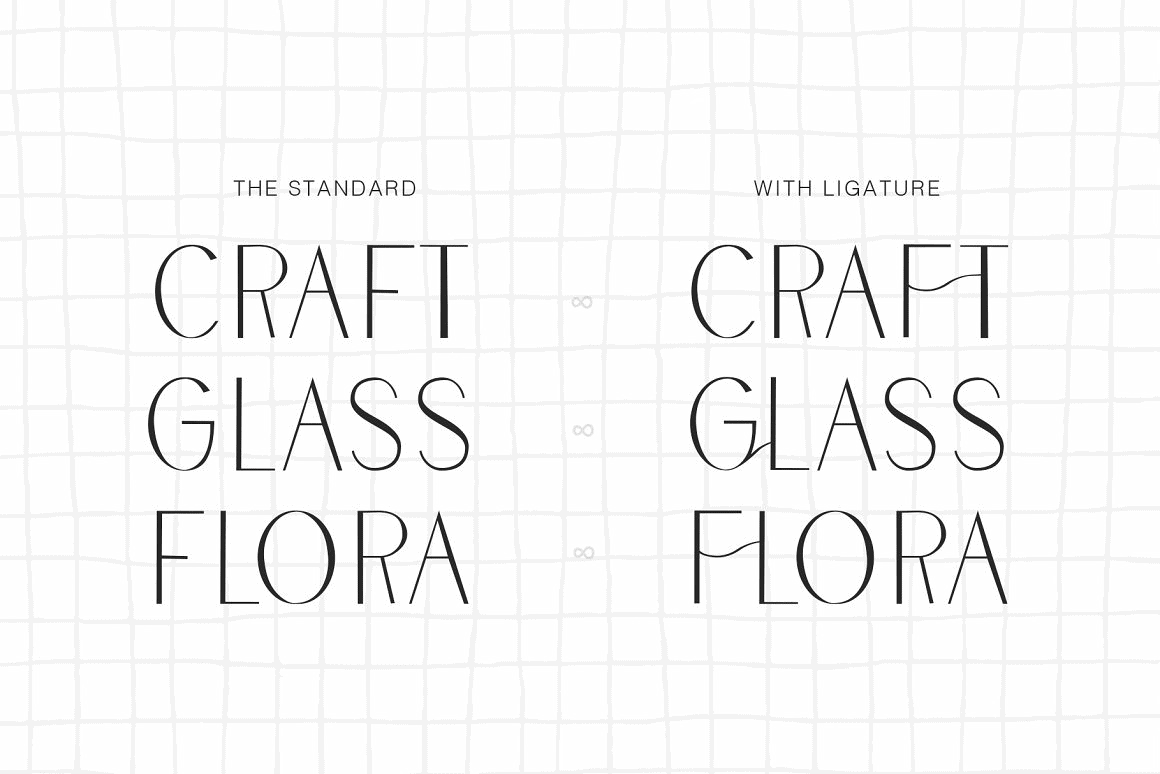
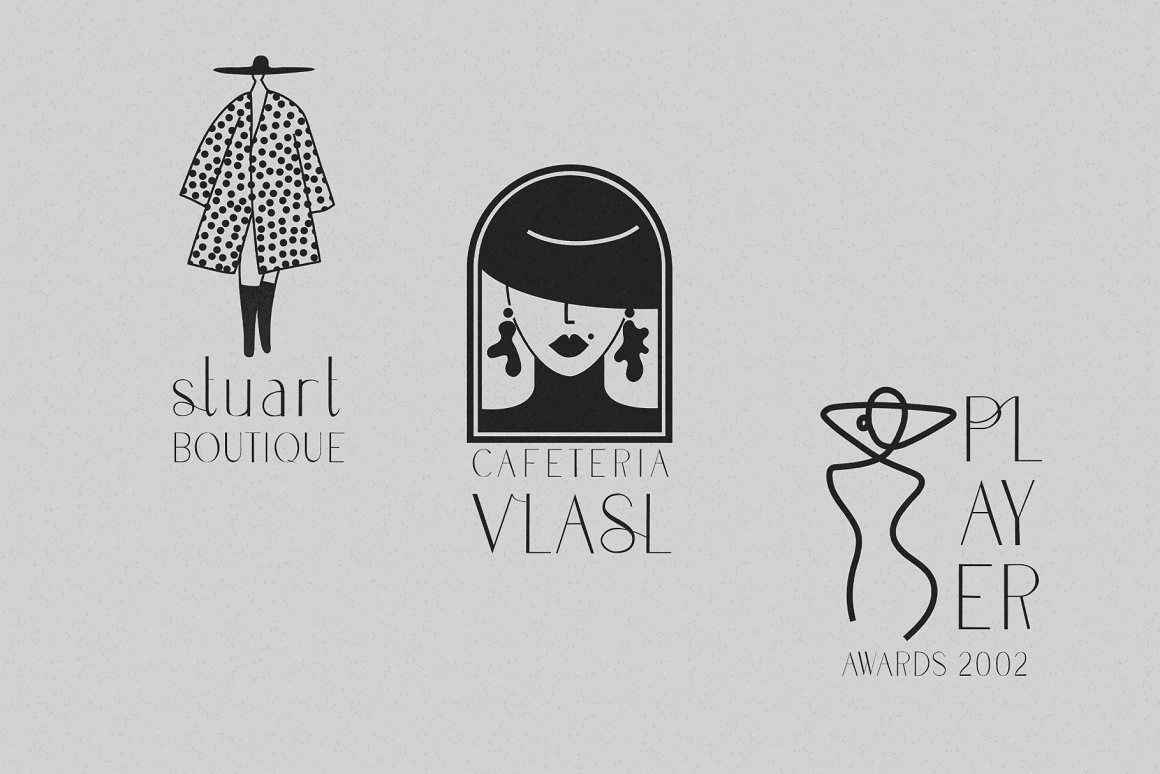
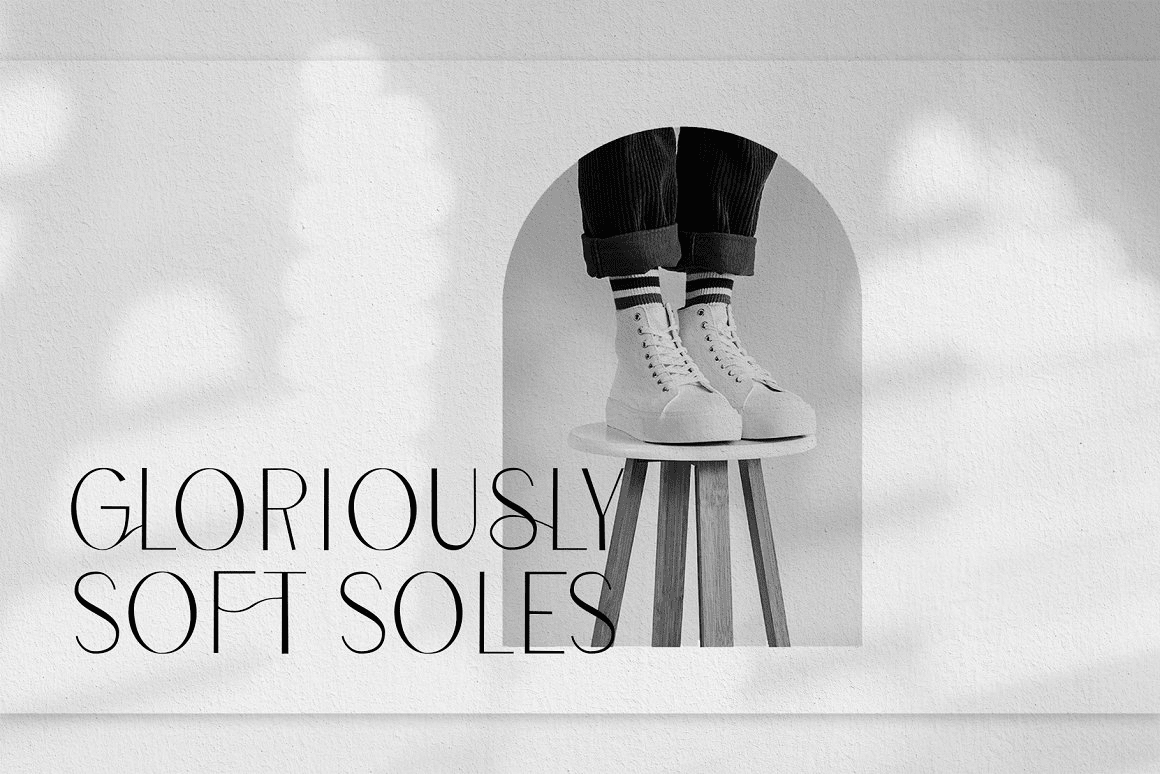
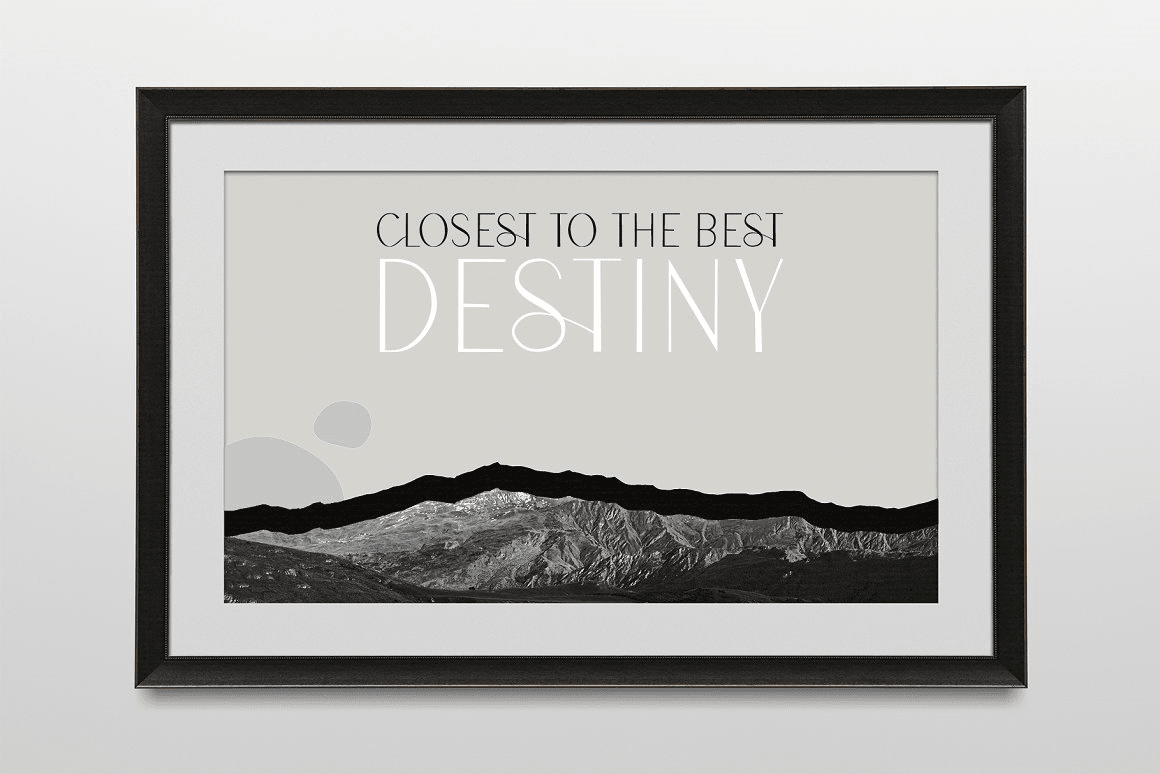
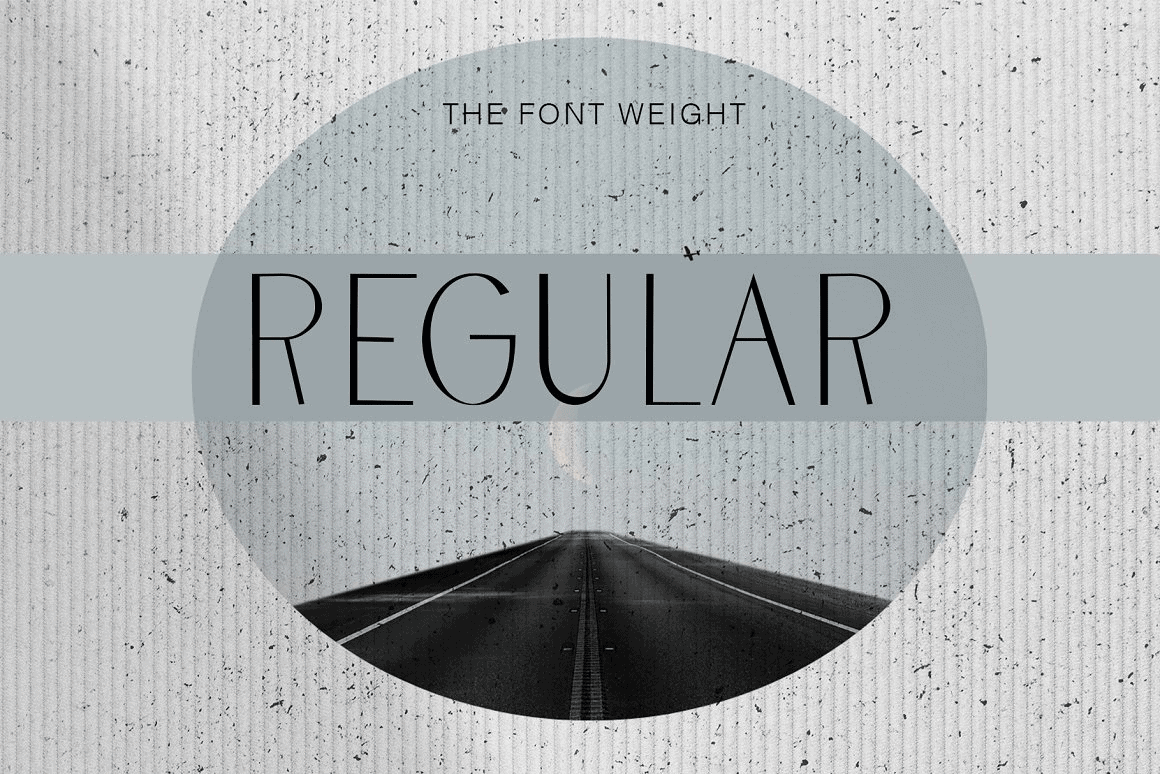
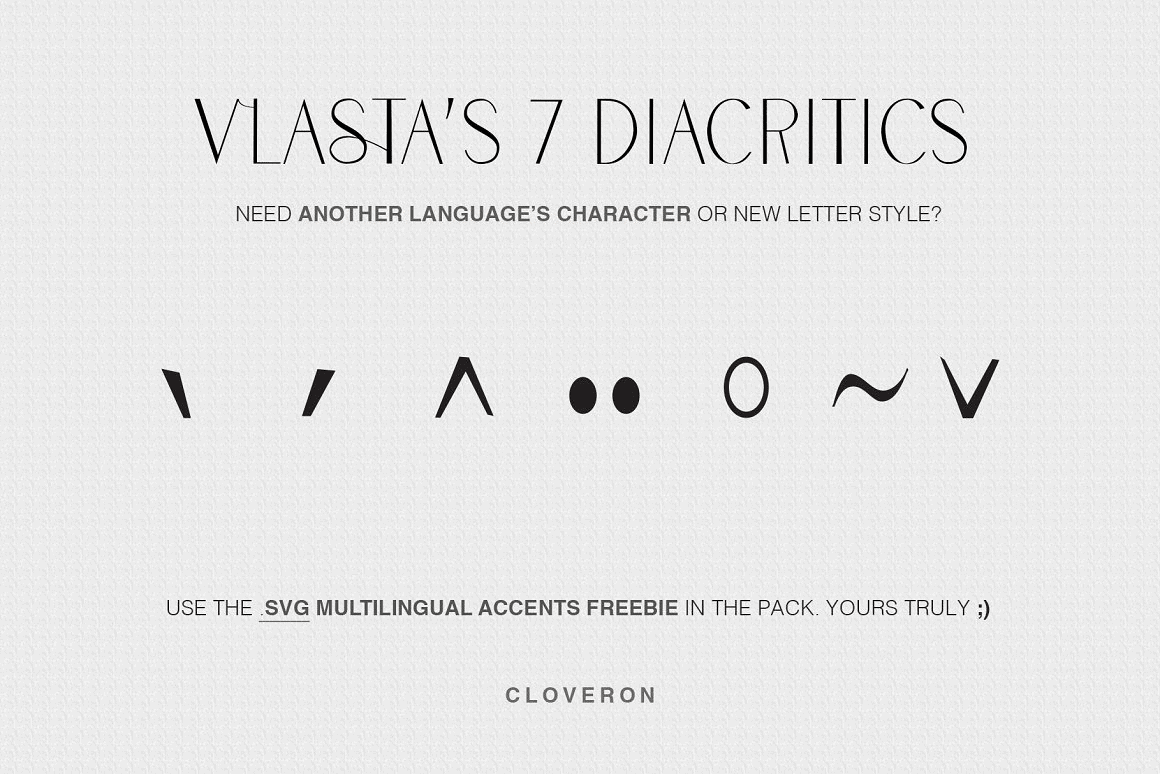
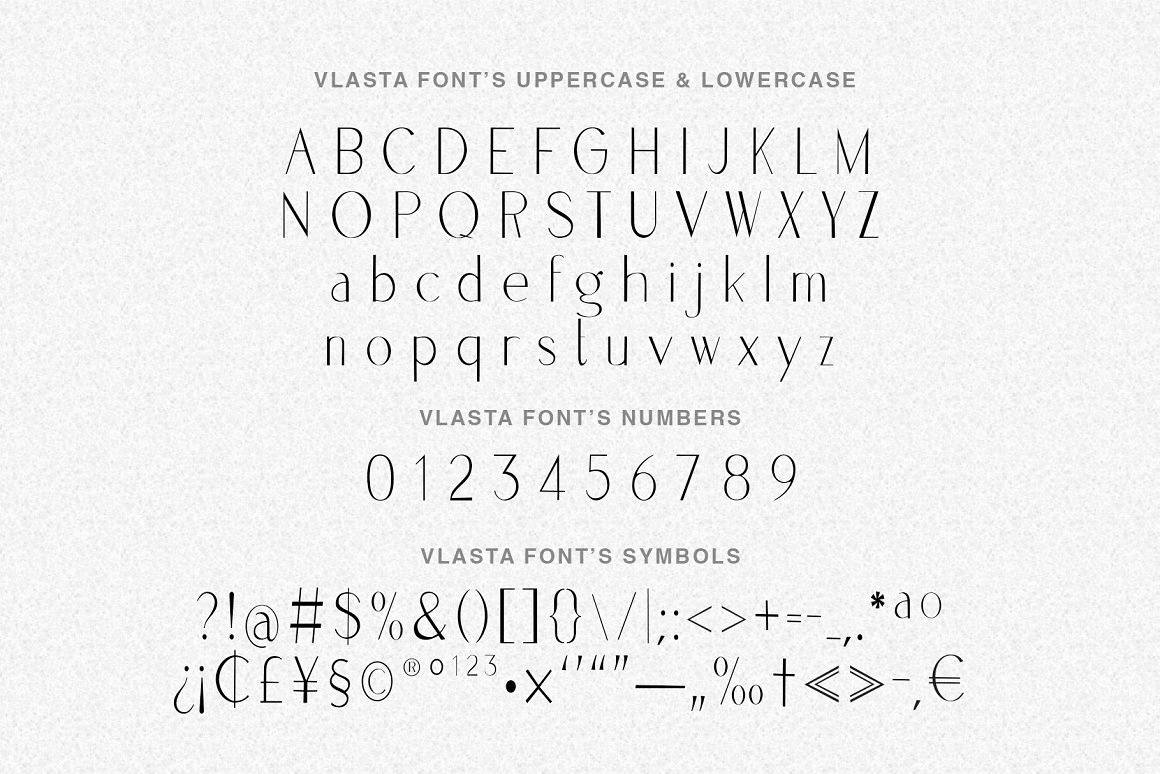
Peggie
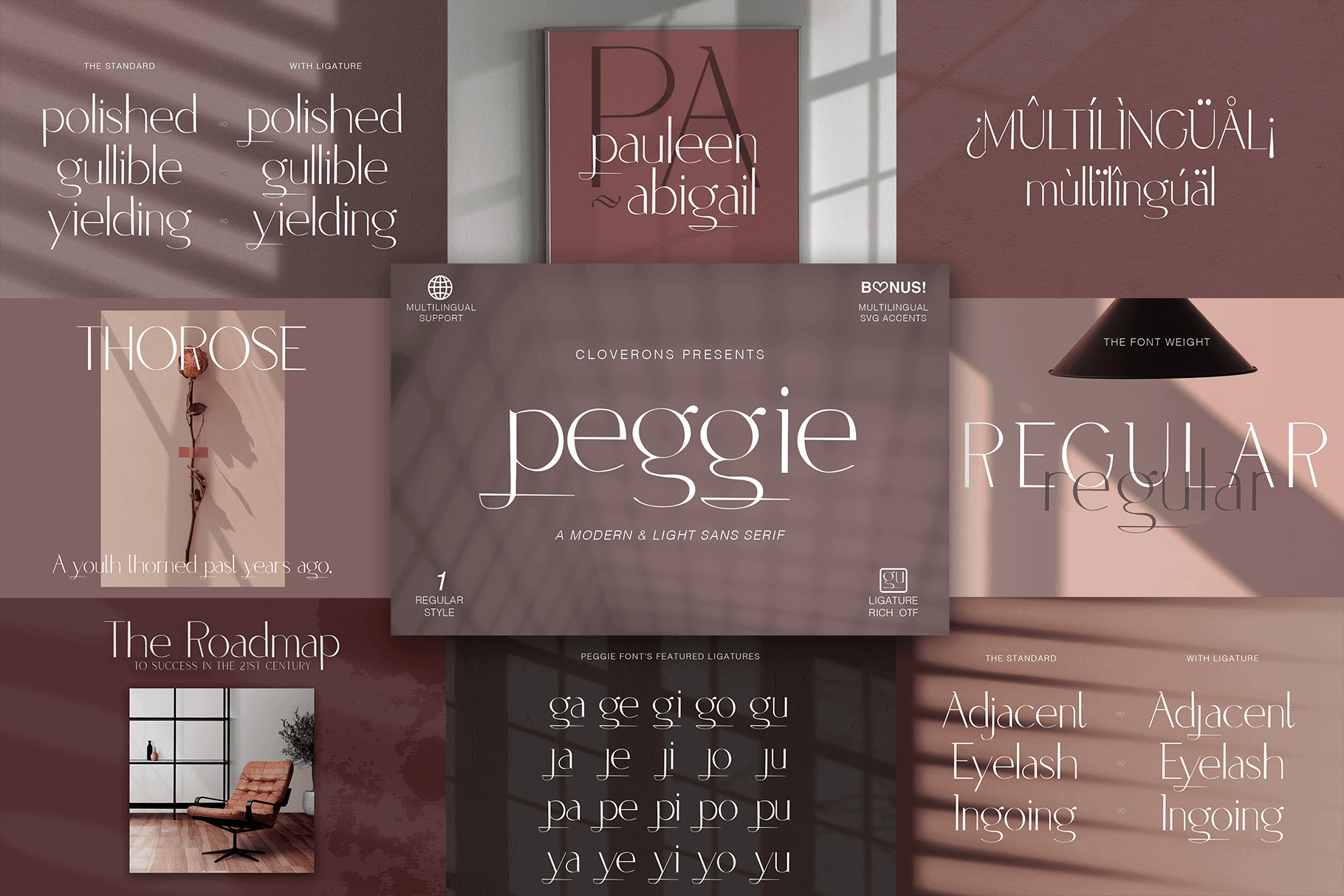
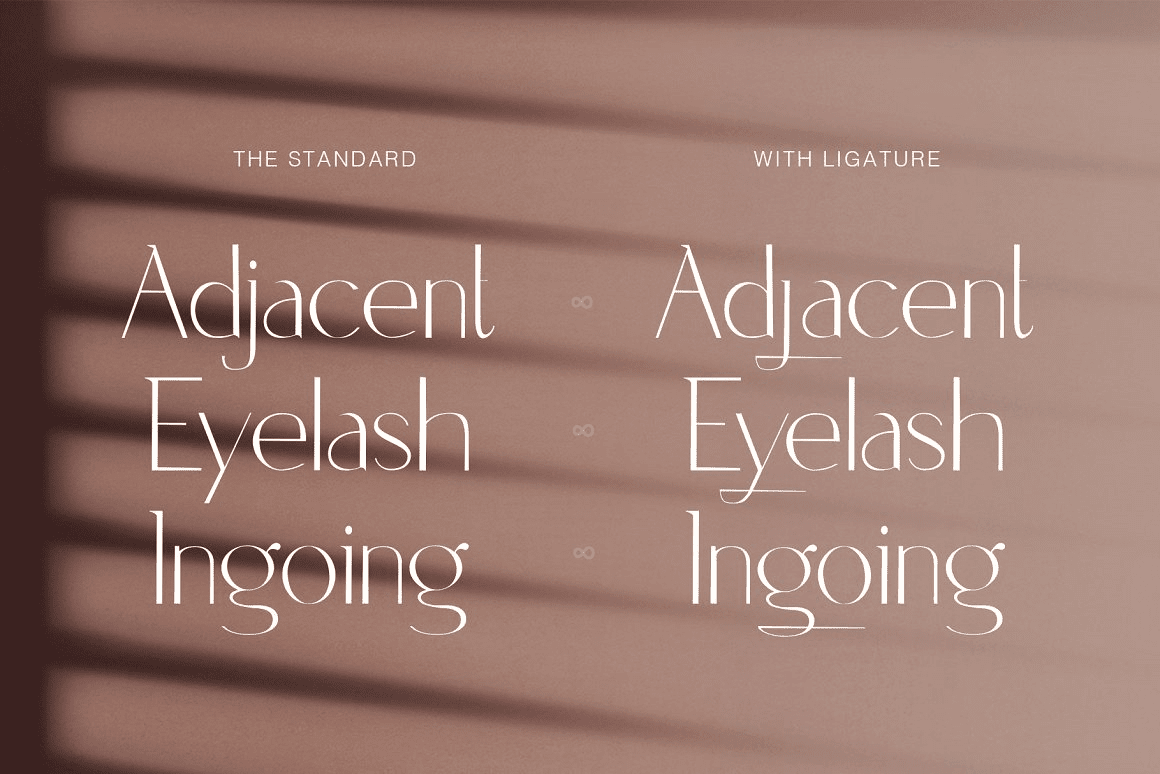
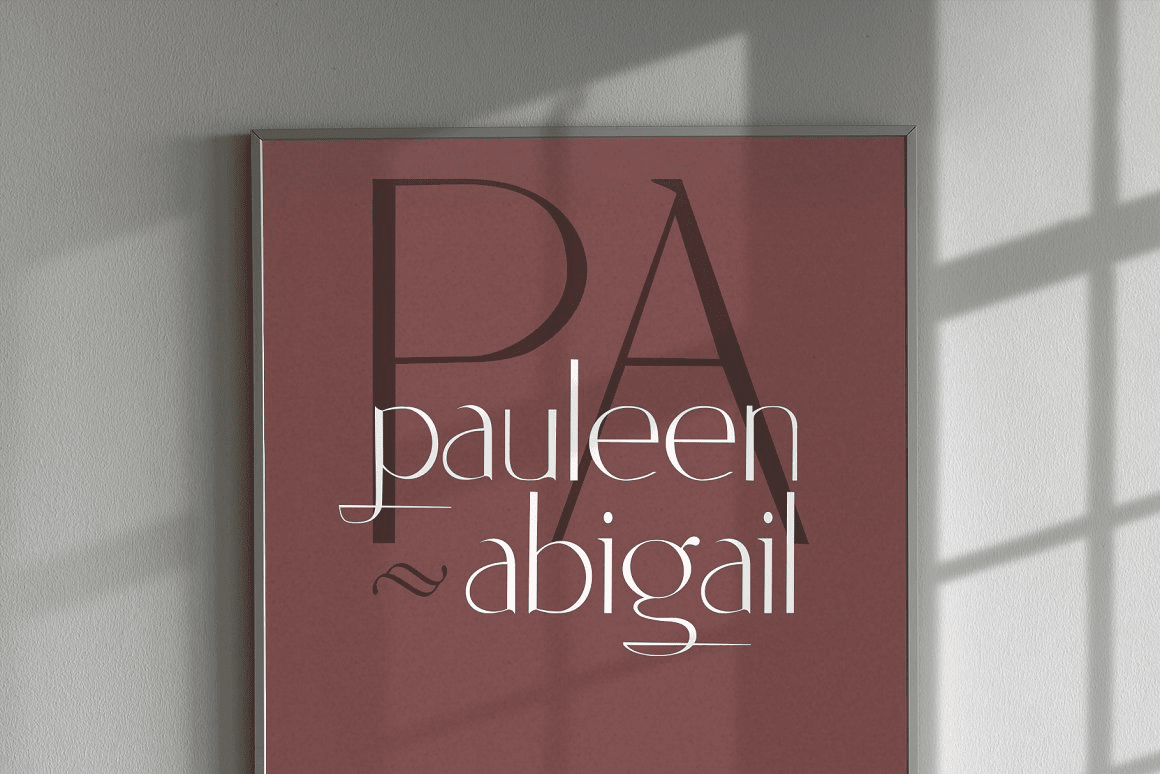
Japera
Glacta
Charleth
Chicka
Gabrieli
Omaira
Fossia
Ivoor